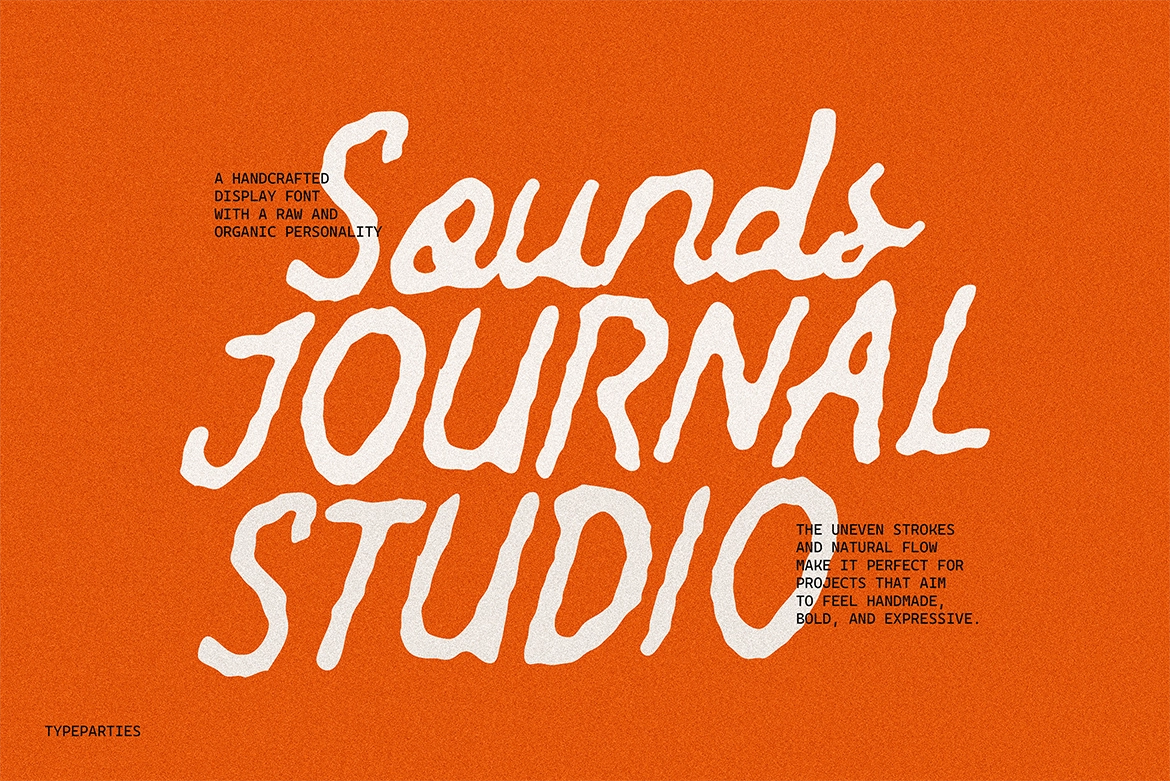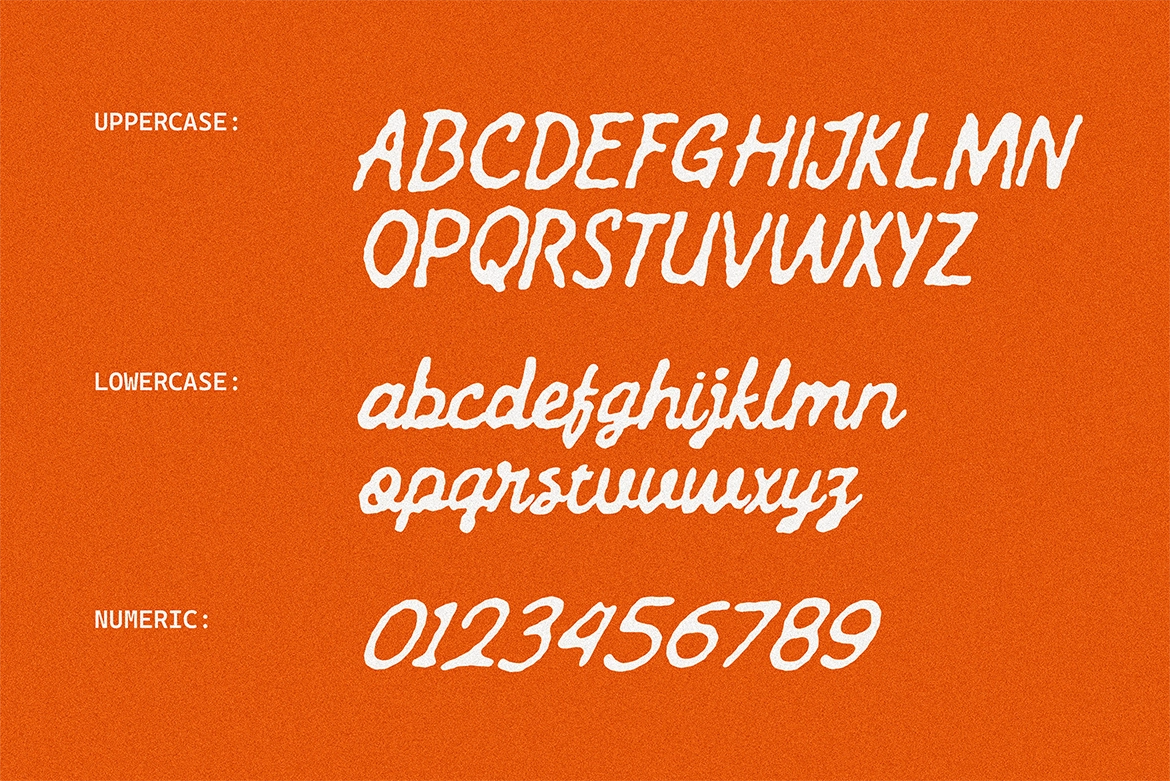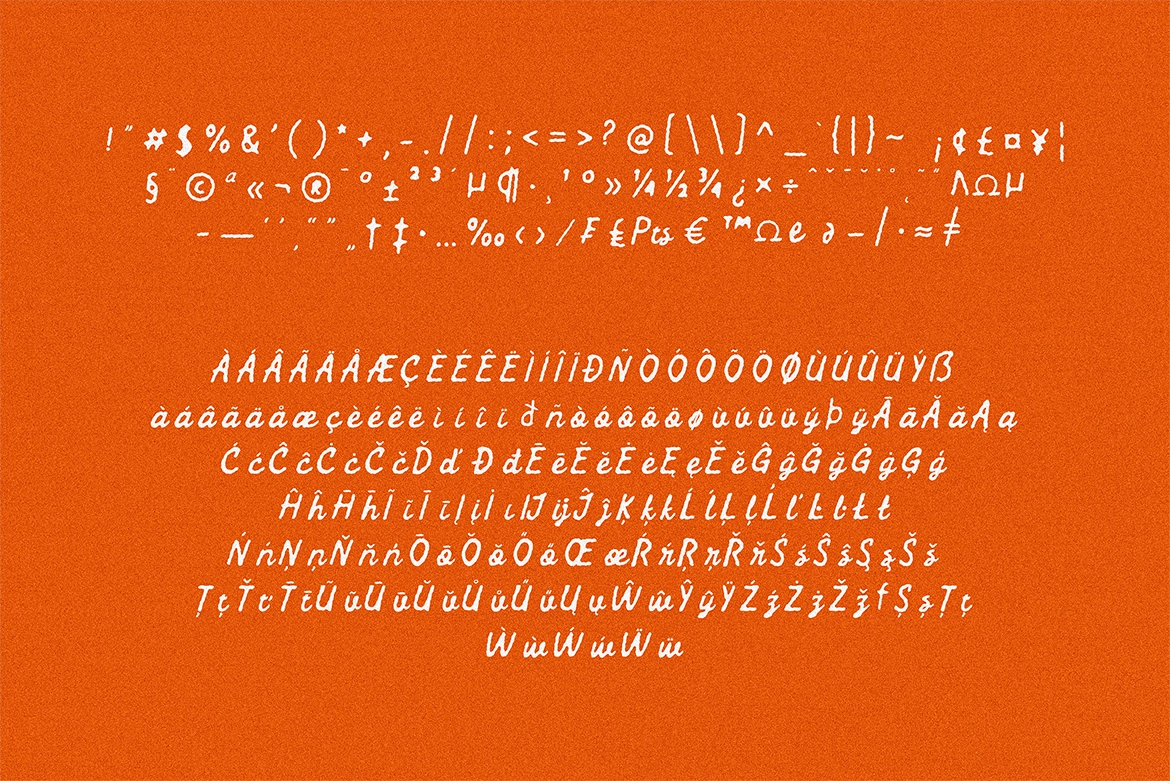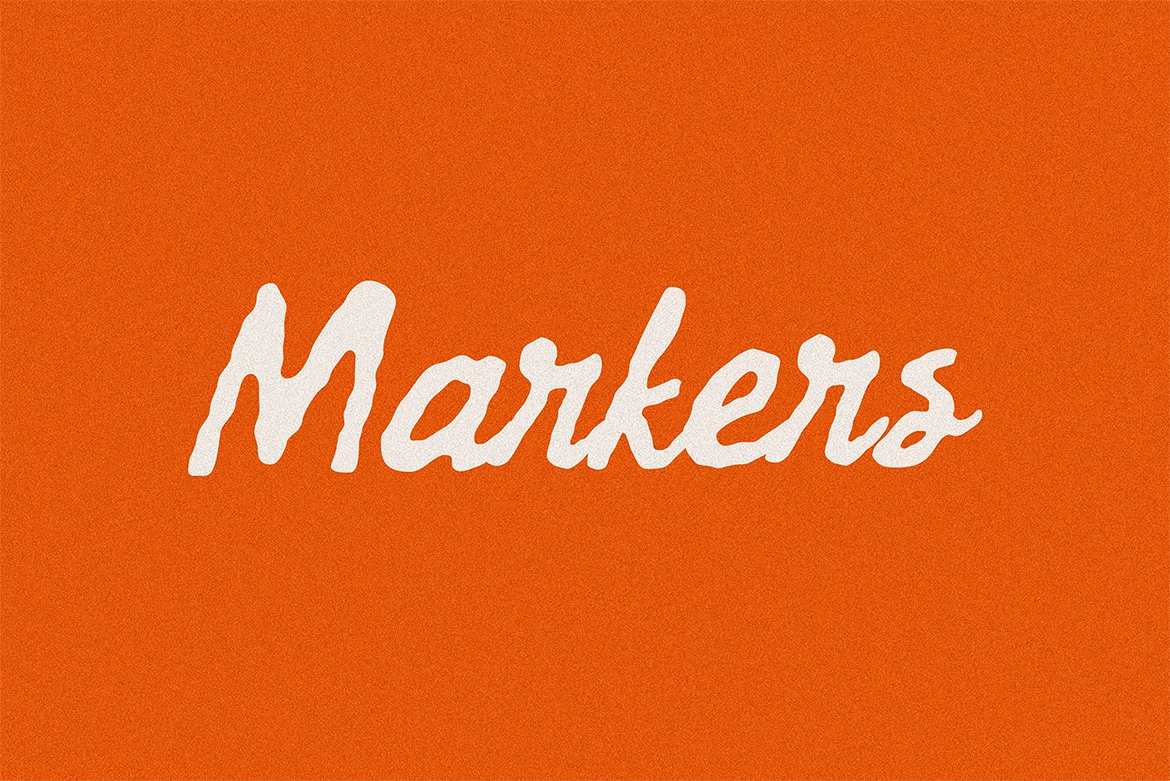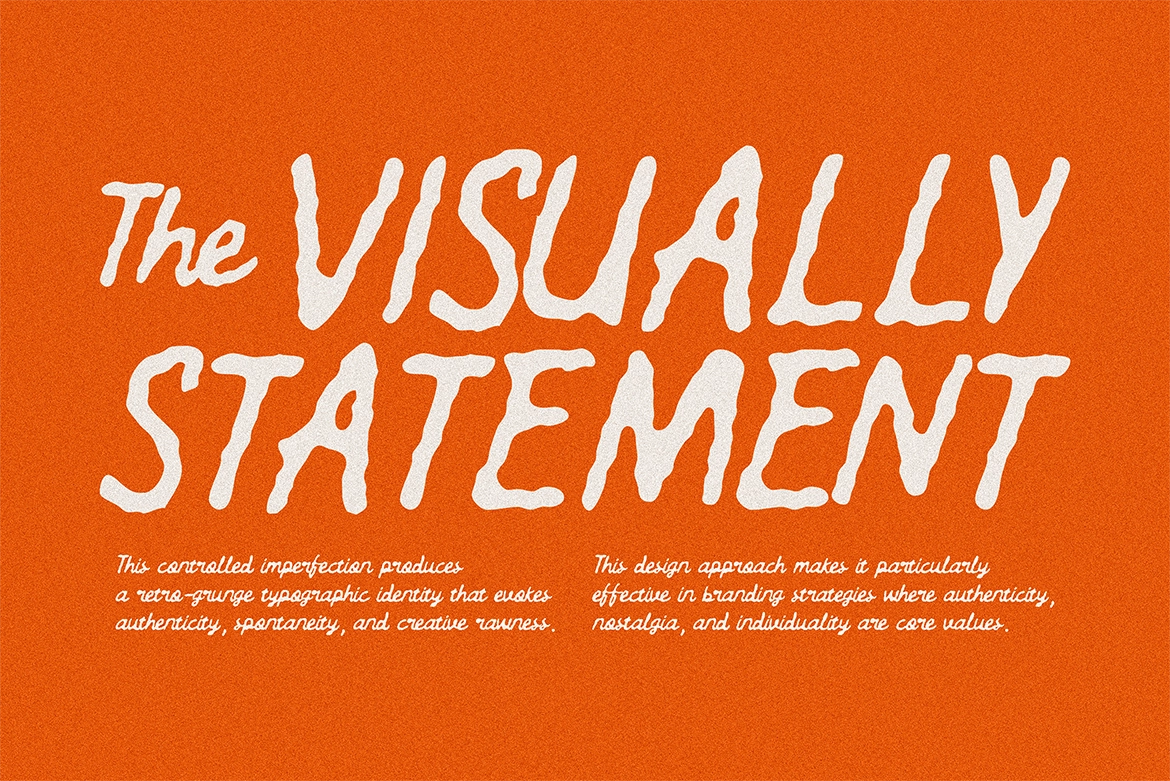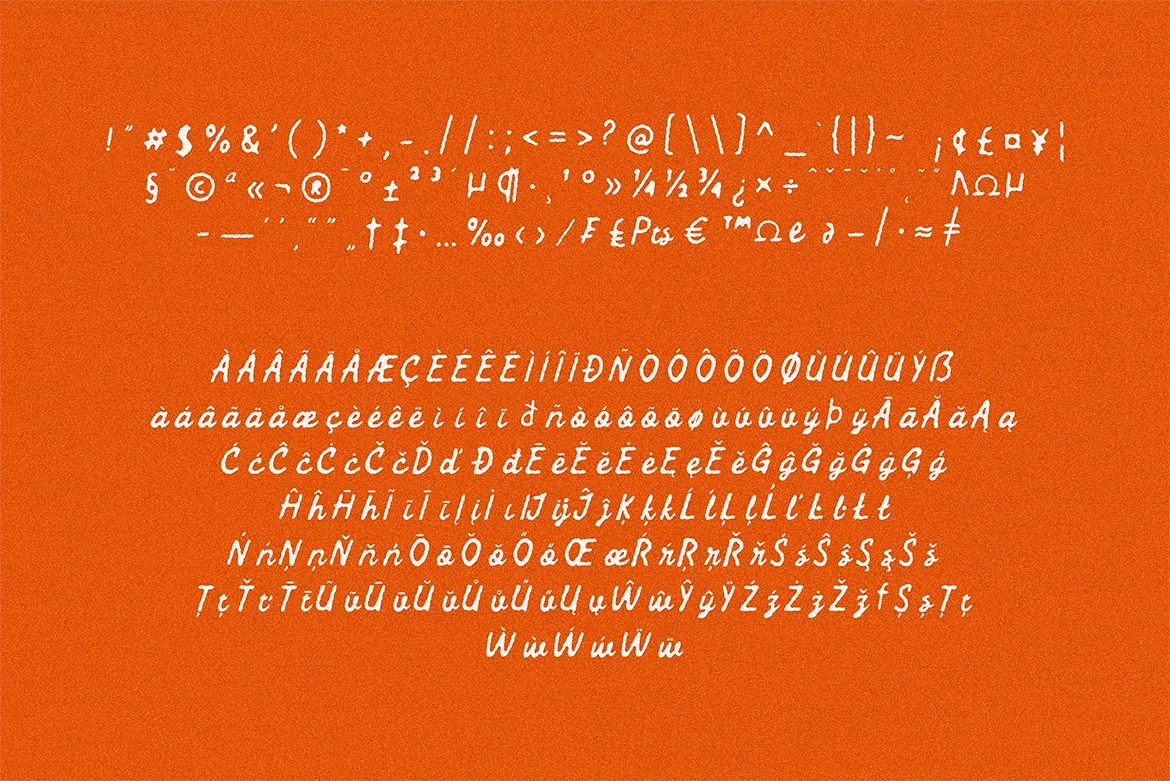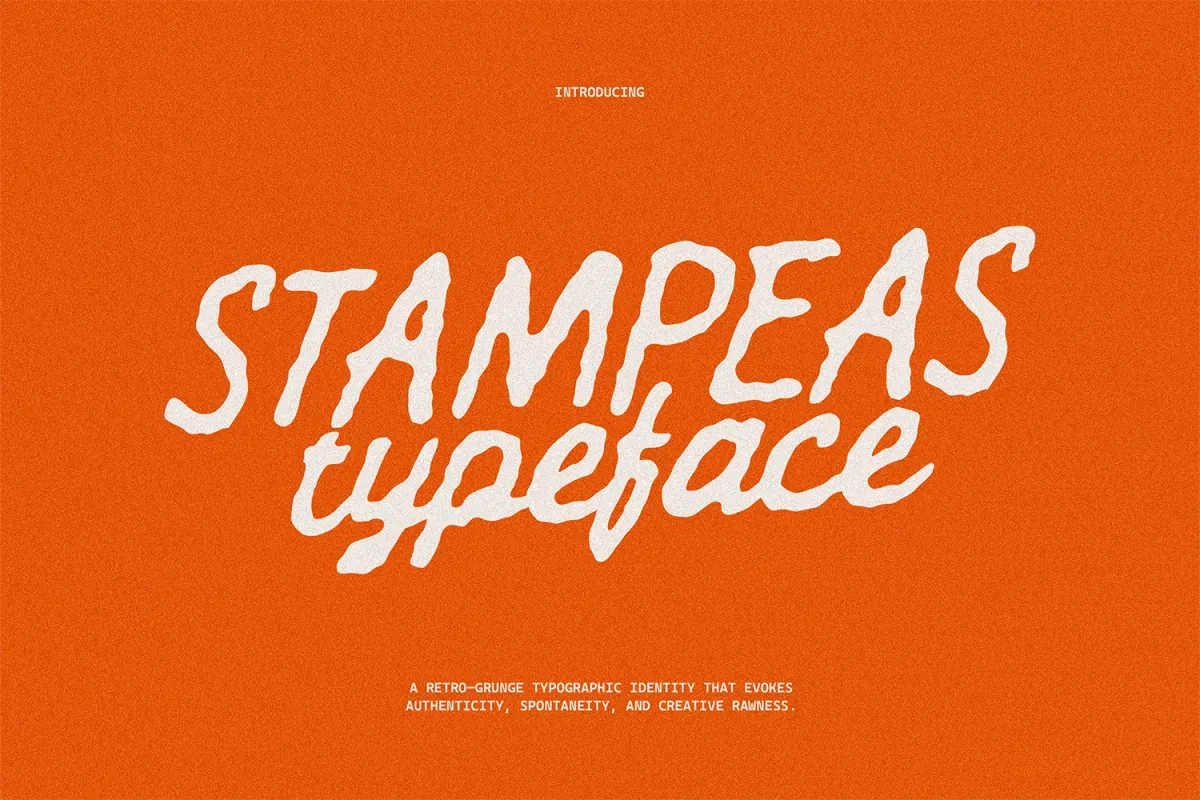
Stampeas Handwritten Surf Script
Stampeas Handwritten Surf Script is a raw, hand-drawn display font inspired by ink-stamped lettering and coastal surf culture. Its organic, uneven strokes and flowing script style deliver authentic retro charm with indie edge — perfect for designs that feel handmade, energetic, and free-spirited.
Ideal for surf brand logos, vintage beach posters, apparel graphics, skate shop branding, music festival flyers, and coastal lifestyle packaging, Stampeas captures the imperfect beauty of hand-stamped art while maintaining modern readability and visual punch.
The font's natural flow and weathered texture add genuine personality to every project, making it a standout choice for ocean-inspired typography and adventure branding.